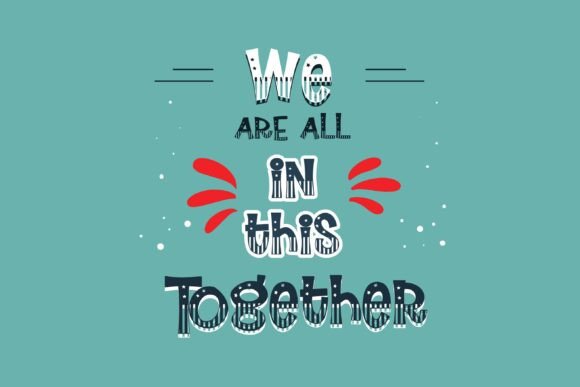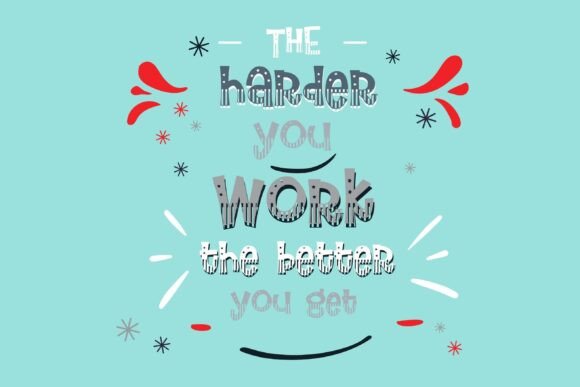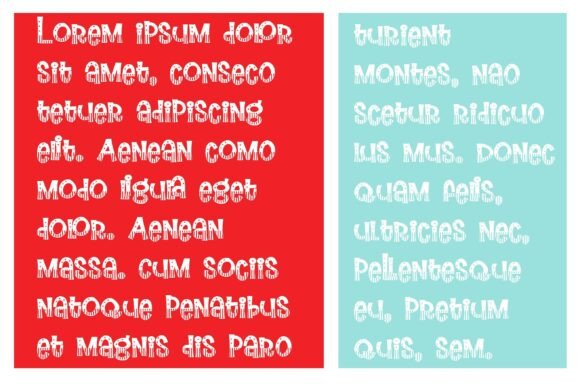
Introduction to Jolly July Family Font
Remember that one summer when you spent hours brainstorming ideas for the perfect 4th of July party invitation? You wanted something that captured the essence of freedom, fun, and patriotism, but struggled to find the right design element to make it truly stand out. That’s where Jolly July Family Font comes in – a high-quality, free download that’s sure to ignite the celebratory spirit of Independence Day.
As a valuable design resource, Jolly July Family Font is built with a playful, casual sans-serif structure that’s perfect for adding a proud, energetic Americana aesthetic to your layouts. With its unique design featuring tiny stars on the upper half and clean, sharp vertical stripes on the bottom, this font is an exceptional choice for creators looking to bring a sense of summer freedom to their creative projects.
Key Features of Jolly July Family Font
- Unique, hand-drawn design with a playful and whimsical feel, perfect for creative projects.
- Comes in multiple weights and styles, offering versatility for a wide range of design applications.
- Perfect for use in logos, branding materials, and other design elements where a touch of personality is needed.
Honest Review: Jolly July Family Font
I recently came across the Jolly July Family Font while searching for a new design resource to elevate my creative project. As a designer, I’m always on the lookout for high-quality fonts that can help bring my ideas to life.
The Jolly July Family Font is a delightful addition to any design project, offering a unique and playful touch. I particularly appreciate the variety of weights and styles available, making it a versatile choice for both digital and print designs. ✨
- Works well in digital designs, particularly on social media and websites.
- Can be used to create eye-catching headlines and titles.
- Offers a range of weights and styles for added versatility.
One potential limitation is the lack of support for transparent backgrounds, which may limit its use in certain design applications. ⚠️ However, this is a relatively minor issue, and the font’s overall quality and character more than make up for it.
Overall, I’m impressed with the Jolly July Family Font and would highly recommend it to fellow designers and creatives. Its free download and high-quality design make it an excellent choice for any project. I look forward to incorporating it into my next creative project.
The Jolly July Family Font is a high-quality, free download design resource ideal for creative projects that require a playful touch. Its transparent background makes it versatile for use in various design applications.
For optimal results, use the font in conjunction with other playful design elements. Experiment with different font sizes and combinations to achieve a unique look.
The Jolly July Family Font is suitable for:
- Children’s party invitations and decorations
- Food and beverage branding
- Seasonal and holiday-themed designs